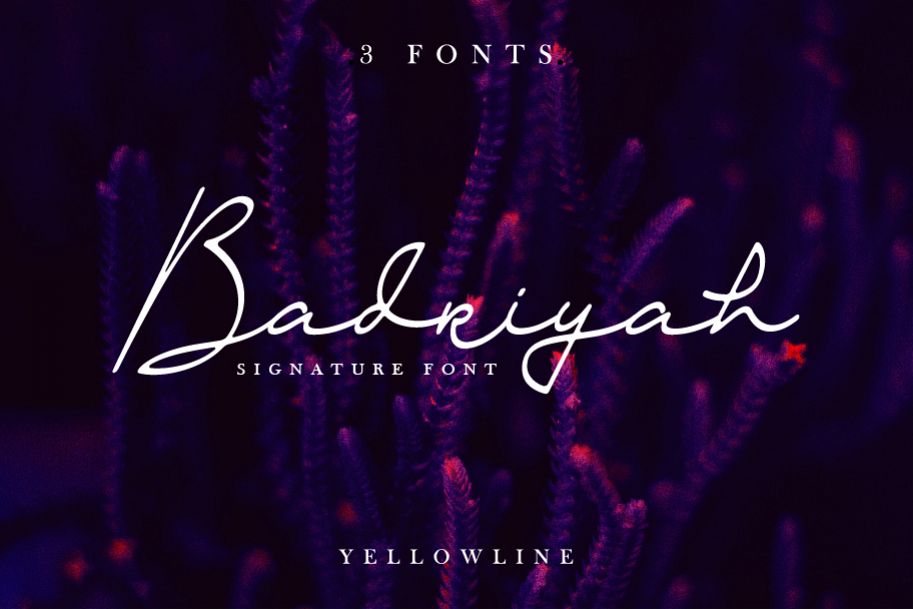
Badriyah
Badriyah One
Badriyah Two
Badriyah Three
Introducing a new product called Badriyah.
This font is simply, elegant and classy font. Badriyah has 3 font
versions that you can choose as needed. Badriyah is perfect choice for
your signature, fashion, e-commerce design, logo and more design
projects.